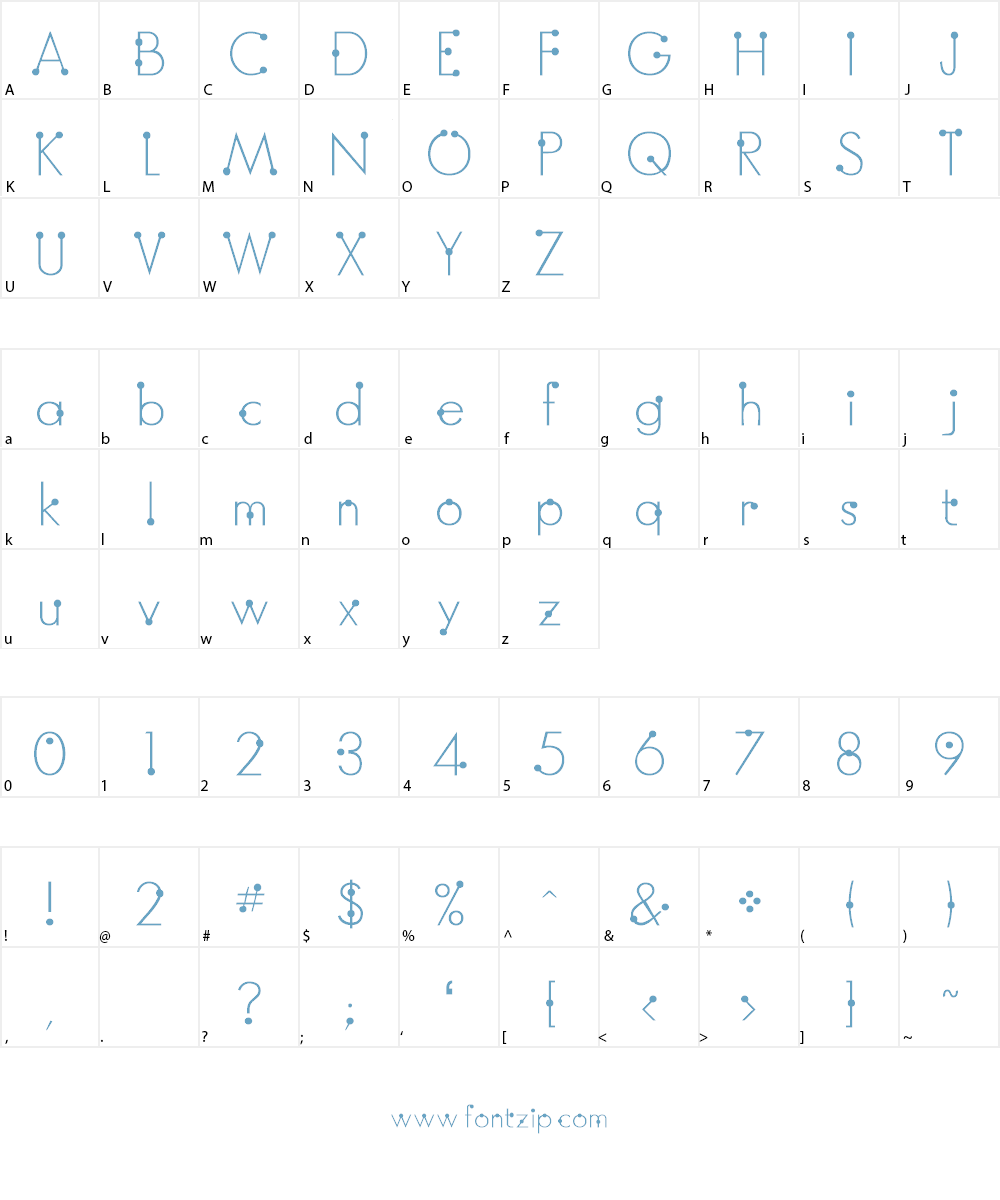
The Boum-Boum typeface has been created for a friend of mine who was designing record sleeves. He wanted a clear, legible font that would at the same time evoke musik.
I did not want to go into corny guitar pi fonts or things that would remind more or less directly musical notation. Rather than this, I took the elemental drumstick and the most functional style of typeface, in the line of the Bauhaus work.
Here is Boum-Boum, a very legible font that could probably even succesfully be used for text, but that remains unmistakable, and perfect for titles, headlines, quotes.